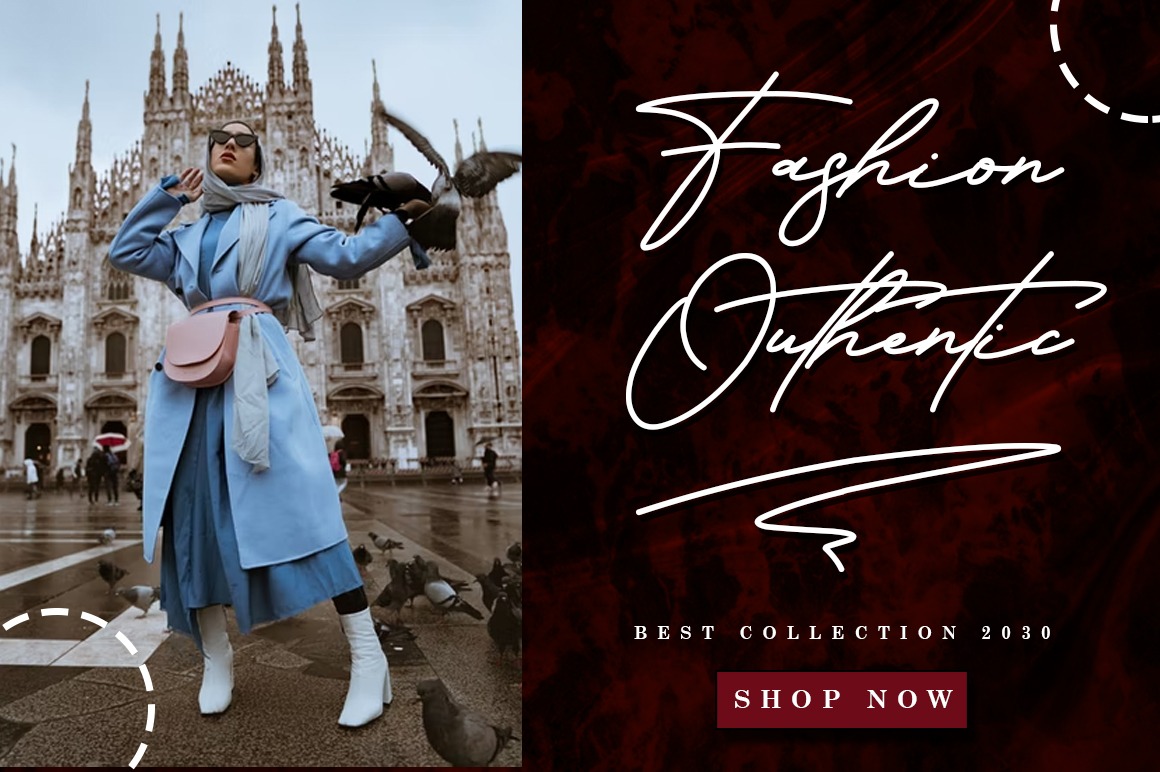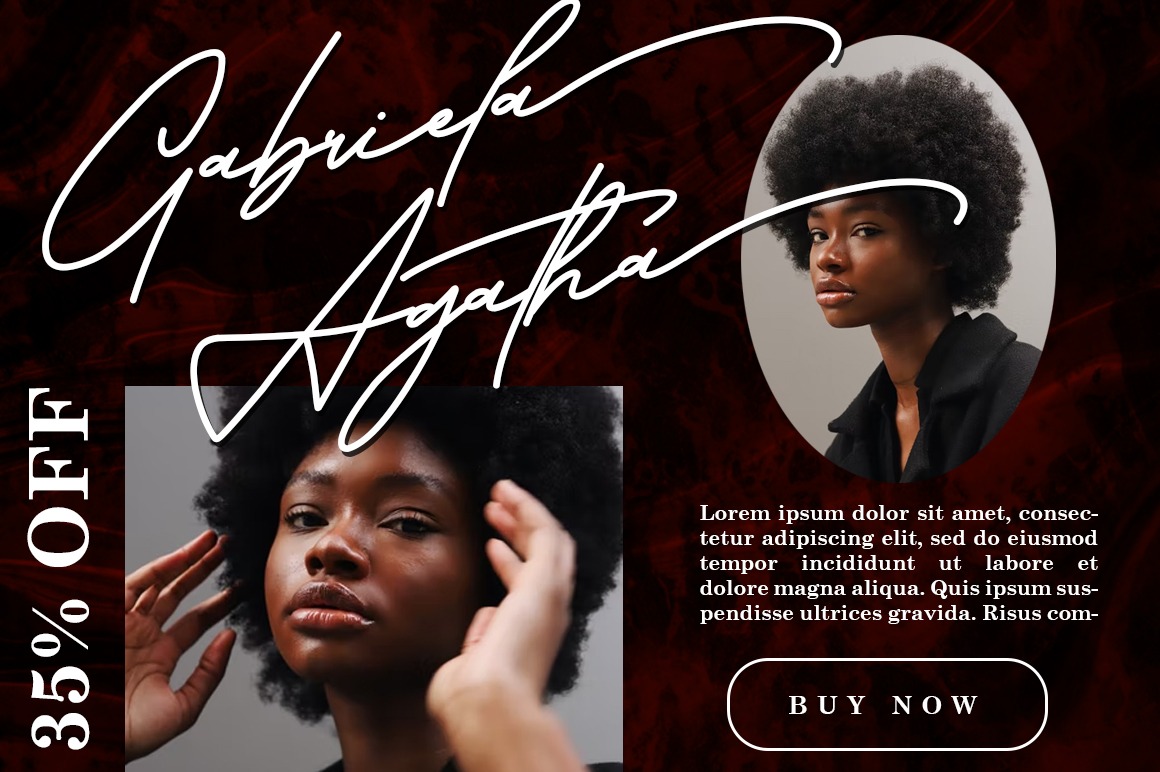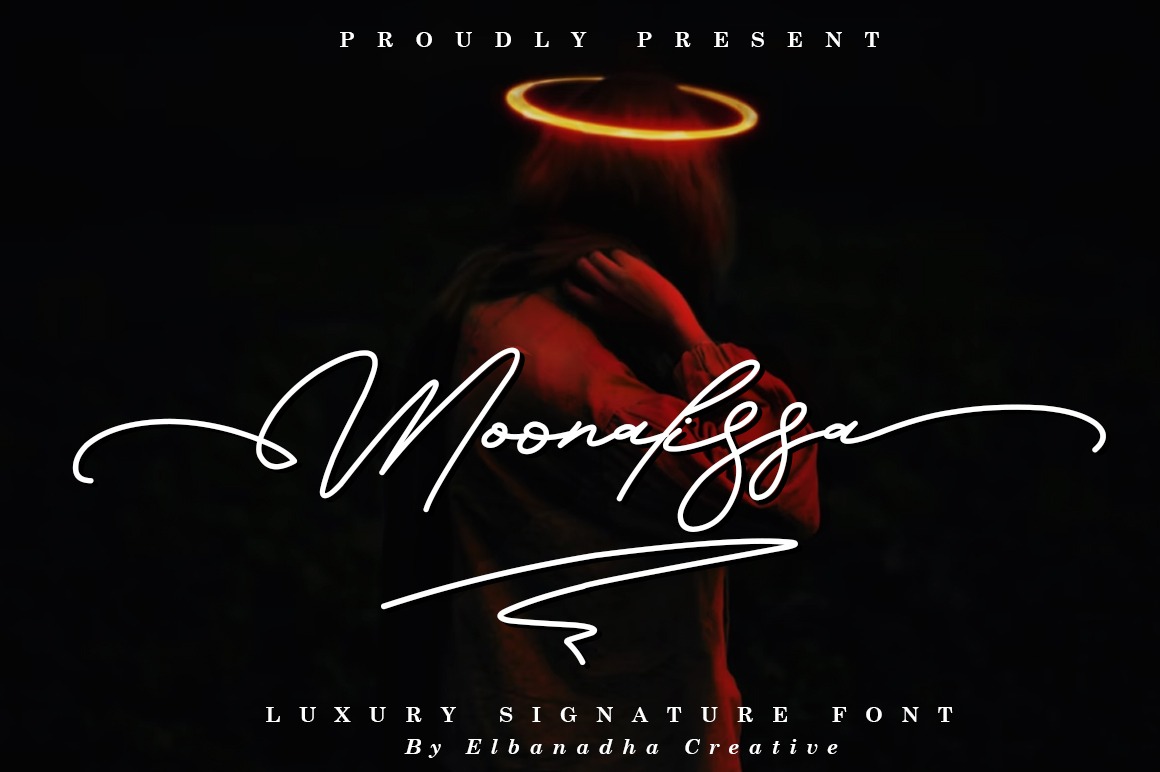
Moonalissa Font
Moonalissa Handwritten Font is another lovely modern signature and mono line font, which is combining the style of classic signature with an modern style. Suitable for any projects such as: logos, branding projects, homeware designs, product packaging, mugs, quotes, posters, shopping bags, t-shirts, book covers, name card, invitation cards, greeting cards, label, photography, watermark, special events, and all your other lovely projects that need a beautiful taste.